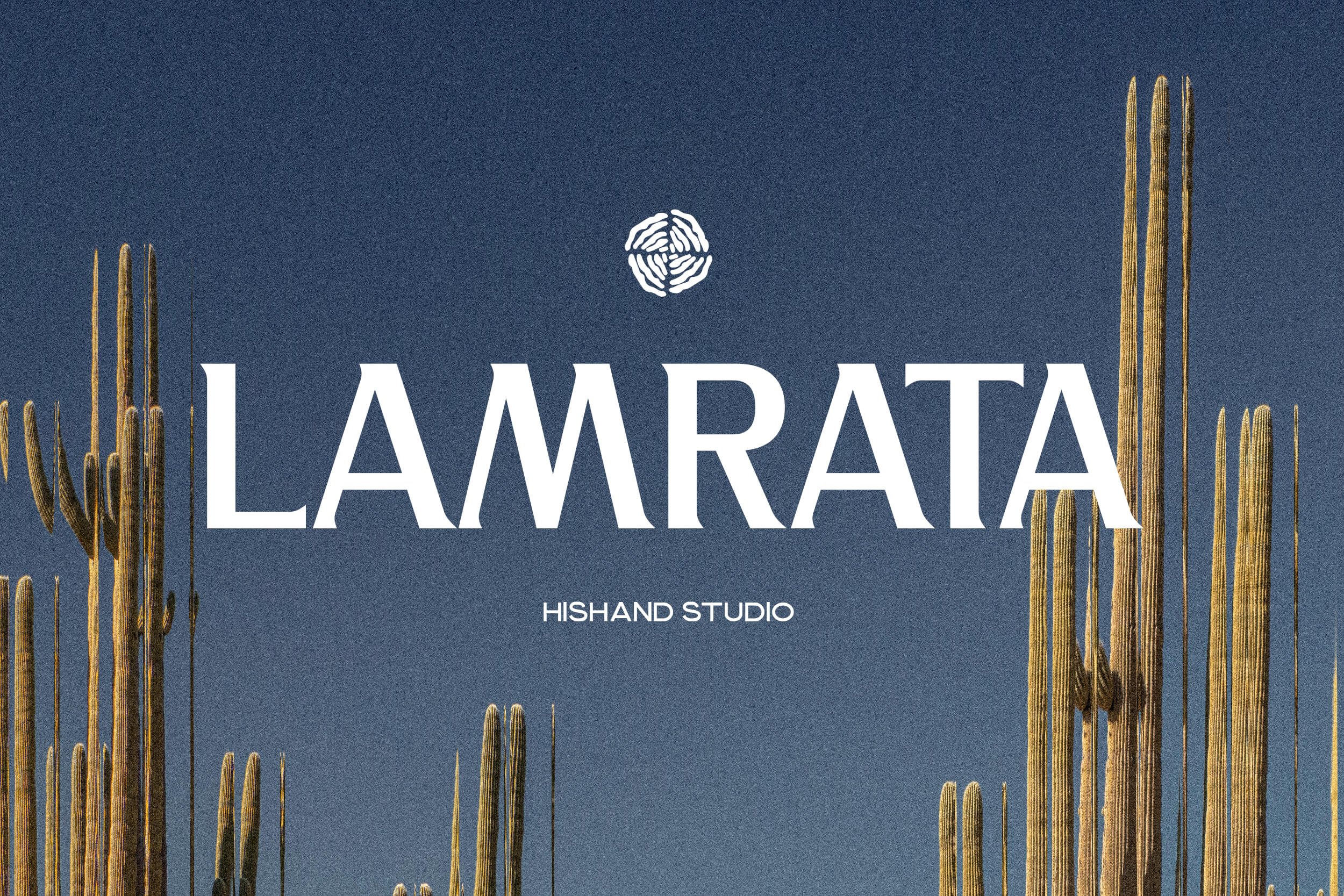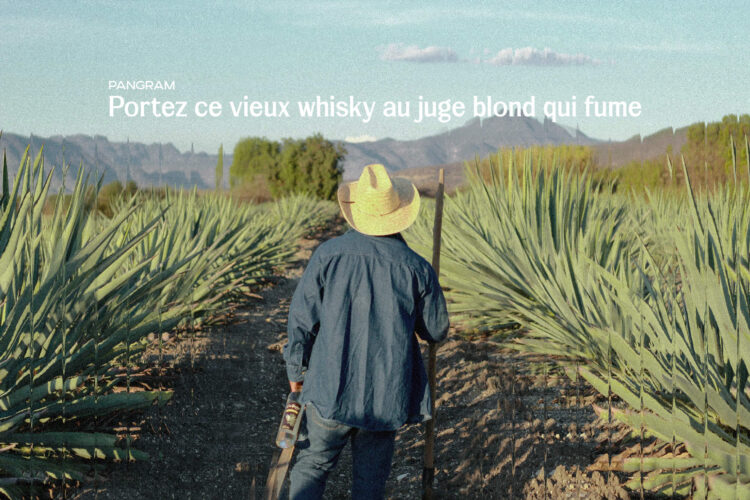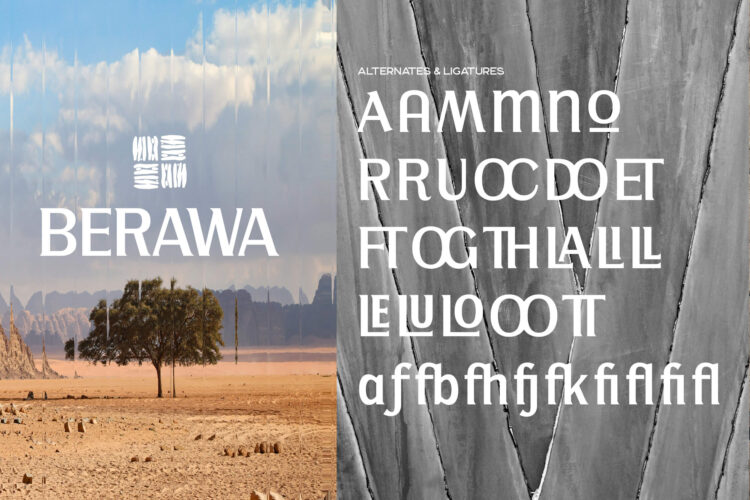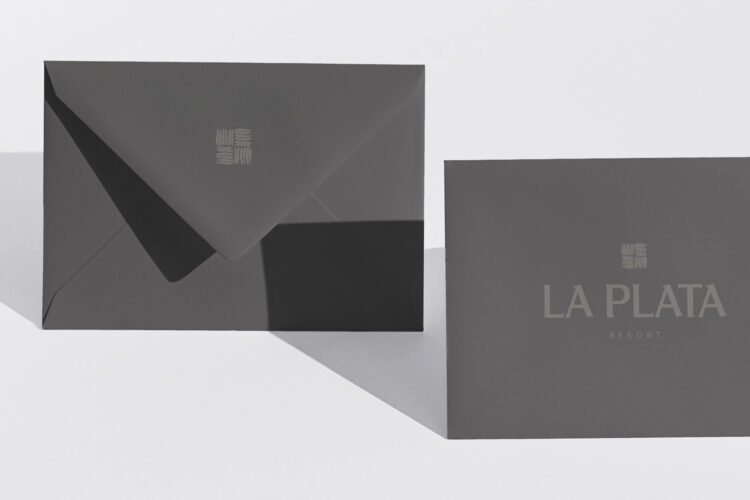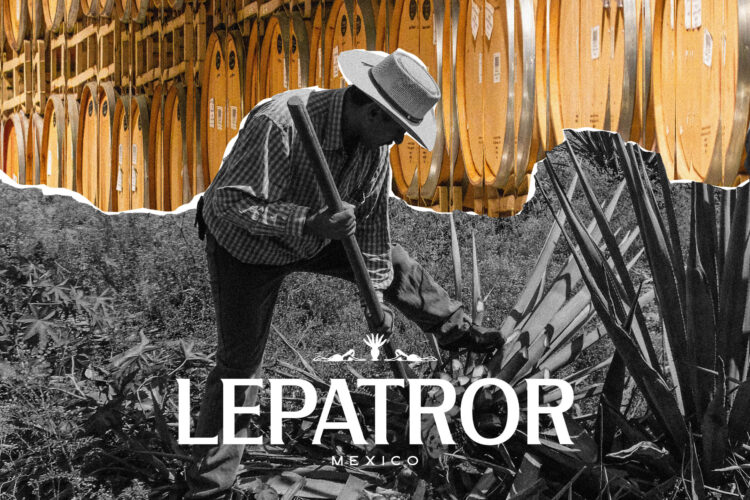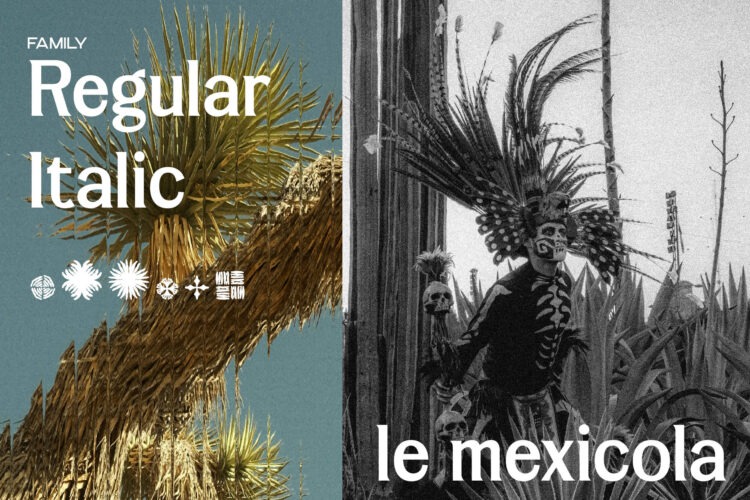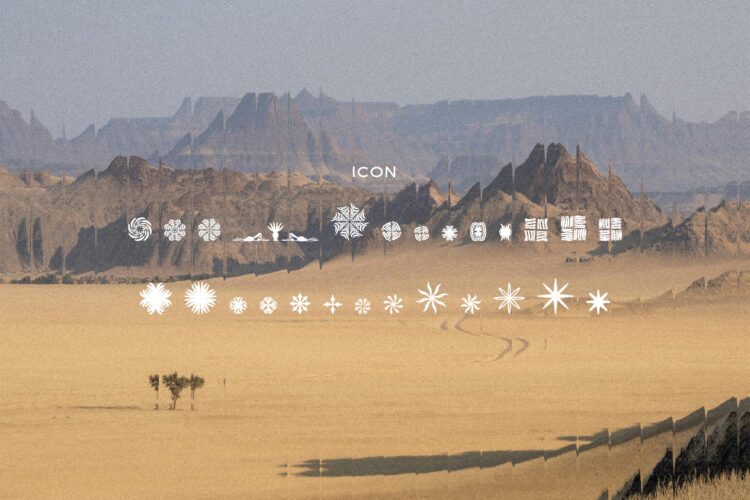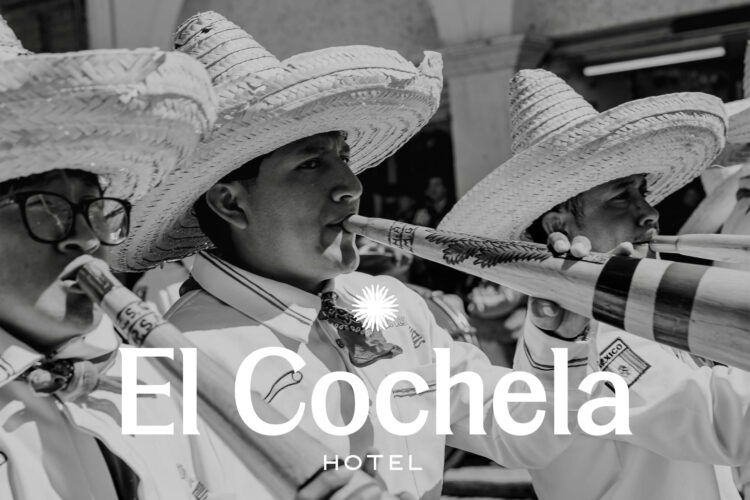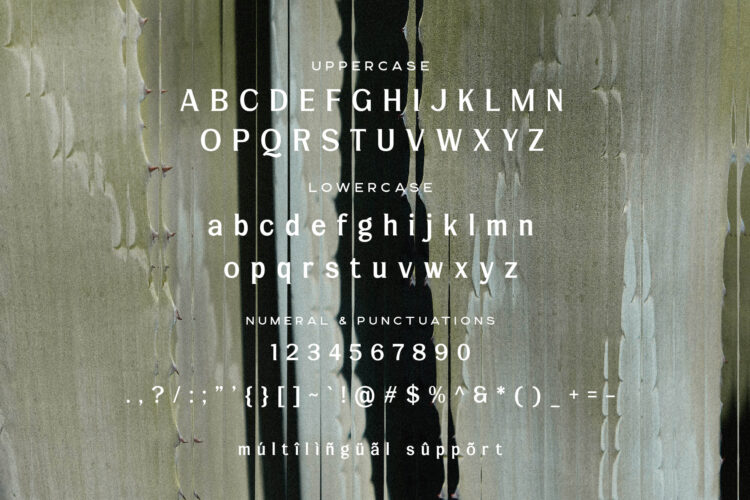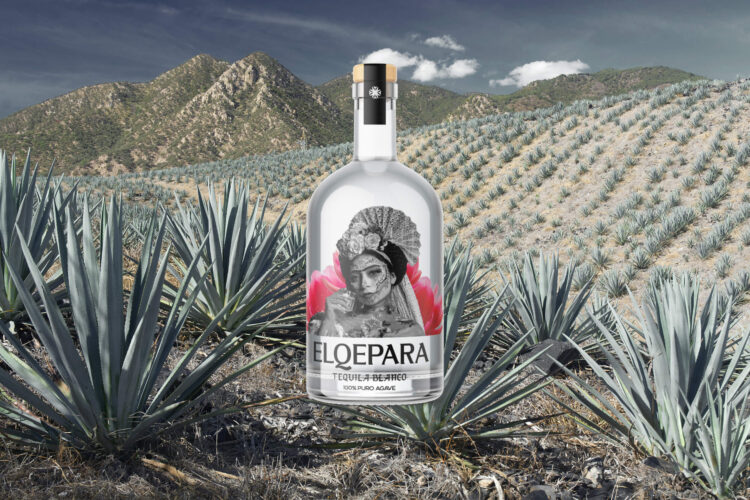
Lamrata Font
Lamrata is a display serif font that combines bold structure with refined, classic aesthetics. Built with strong, even strokes, it avoids thin contrasts and instead focuses on solid, confident letterforms. This gives the typeface a stable and grounded appearance, making it visually striking without feeling overly complex. The serifs are subtle yet distinctive, adding just enough character to elevate the design while maintaining a clean and modern impression.
Designed to stand out, Lamrata features balanced proportions and slightly stylized shapes that create a unique rhythm across each word. Its forms feel deliberate and composed, offering a cool, artistic edge that doesn’t sacrifice clarity. The consistency in stroke weight allows the font to perform especially well at larger sizes, where its details can be fully appreciated. At the same time, it remains readable and controlled, making it practical for display use in a variety of contexts.
Lamrata carries a timeless quality, but it doesn’t feel old or traditional in a rigid sense. Instead, it bridges classic serif foundations with a more contemporary attitude, making it suitable for modern visual identities. The overall look is confident and composed, ideal for projects that aim to communicate strength, style, and clarity without relying on excessive decoration.
This font works particularly well for logos, branding, headlines, and packaging. Its strong presence helps establish a clear visual identity, while its refined details add a layer of sophistication. It gives your work a distinctive presence, with forms that feel bold, balanced, and carefully shaped.
Lamrata also adapts well across different creative directions, from minimal layouts to more expressive compositions. It can stand alone as a statement type or be paired with simpler fonts to create contrast and hierarchy. Its versatility makes it useful for both experimental and structured design approaches, depending on how it is applied. With its clear form and steady weight, Lamrata Serif Display Font remains consistent across different uses, helping maintain a cohesive and recognizable visual identity throughout a project.
Complete with
• ligatures
• alternates
• regular
• Italic
• icon
• kerning
• multilingual support